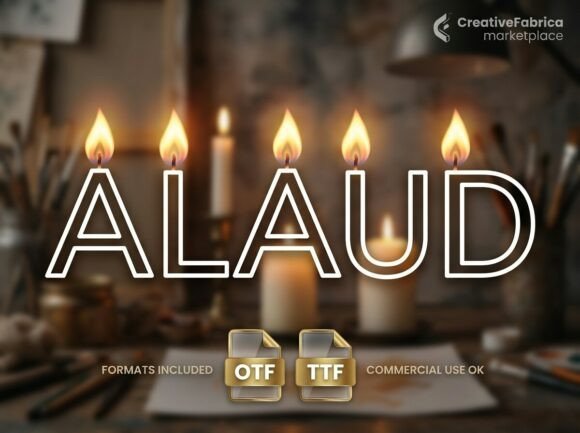
Break Free from the Ordinary with the Alaud Font
You know that feeling when you’re brainstorming a new project and a spark of creativity hits you? The ideas start flowing, and you envision something truly unique and breathtaking. That’s exactly what the Alaud Font is designed to help you achieve.
This stunning decorative display font is the perfect tool for designers who want to make a statement and push the boundaries of creative expression. With its unique artistic elements and strong visual personality, the Alaud Font is ideal for bold headlines, artistic logos, and creative packaging that demands attention. By incorporating this font into your designs, you’ll be able to add a touch of sophistication and polish, while still conveying a sense of playfulness and creativity.
The Alaud Font is more than just a font – it’s a key to unlocking your full creative potential. With its versatility and professional finish, it’s a valuable addition to any designer’s toolkit.
Alaud Font Key Features
- Font Family: Alaud is a sans-serif font family, suitable for digital and print media.
- Character Set: Alaud Font supports a wide range of languages, including Latin, Cyrillic, and Greek alphabets, with over 1000 glyphs.
- Size: The font family includes 8 weights, ranging from Light to Black, allowing for versatility in typography and design.
- Unique Characteristics: Alaud Font features a distinctive rounded edge and geometric shapes, making it suitable for modern and minimalist designs.
Alaud Font Review
First impressions are everything, and Alaud Font certainly caught my eye with its elegant and refined aesthetic ✨. The font’s subtle curves and rounded edges evoke a sense of sophistication and minimalism, making it perfect for a variety of applications.
The font’s high x-height and vertical axis alignment make it highly legible, even at smaller sizes ✨. This is especially useful for body text or titles that need to be easily readable.
Alaud Font also supports a wide range of languages, making it a great option for multilingual projects ✨.
Limits and Drawbacks
While Alaud Font has many strengths, it also has some limitations ⚠️. One of the main issues is its limited range of weights and styles. Currently, it only comes in a few weights, which may not be sufficient for projects that require a wide range of font weights and styles ⚠️.
- Limited range of weights and styles
- Not suitable for projects that require a wide range of font weights and styles
Overall, Alaud Font is a solid choice for designers who need a clean, elegant font for their projects ✨. While it may not be the most versatile font, its high legibility and refined aesthetic make it a great option for a variety of applications.
Getting the Most Out of Alaud Font
To get the most out of Alaud Font, try the following:
- Use it for titles and headings to add a touch of elegance.
- Pair it with other fonts for a unique and stylish look.
Alaud Font is perfect for:
- Photography and art projects.